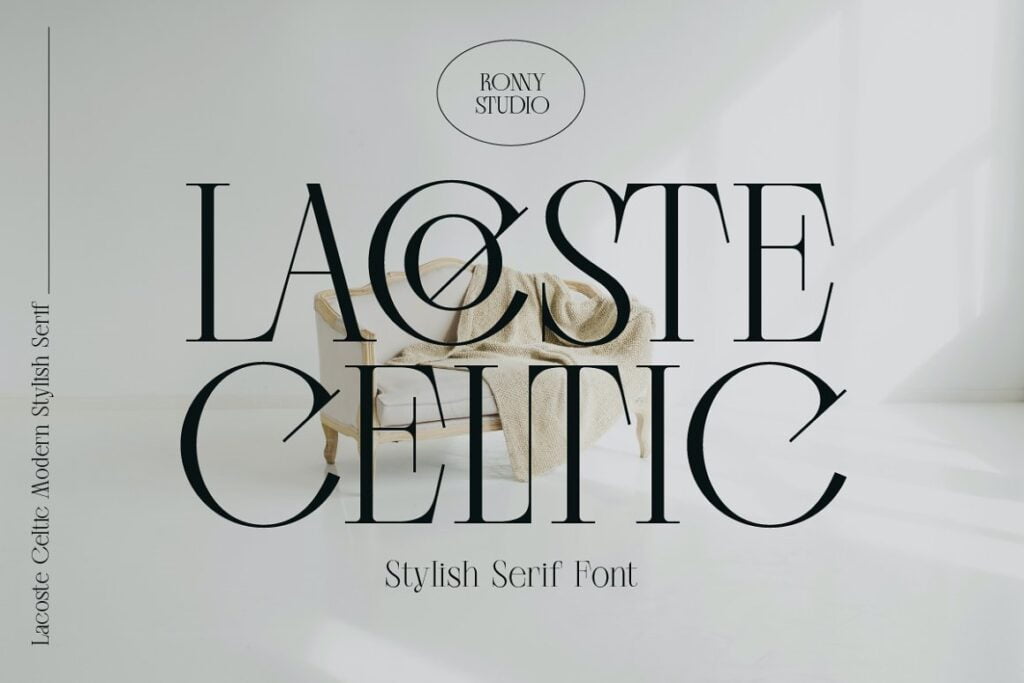
Lacoste Celtic Font
Introducing Lacoste Celtic, a sophisticated ligature serif font. This typeface was made with great care to ensure premium quality and a luxurious feel. The ligatures make this typeface unique and suitable for logos, headlines, titles, invitations, labels, logos, magazines, books, greeting/wedding cards, packaging, fashion, makeup, stationery, novels, labels, or advertising purposes.
Lacoste Celtic Serif Font